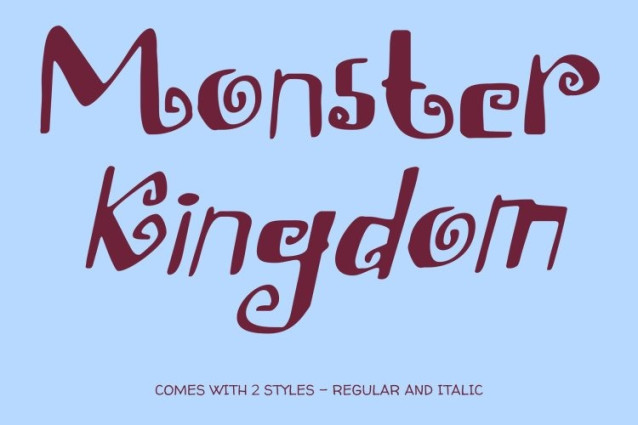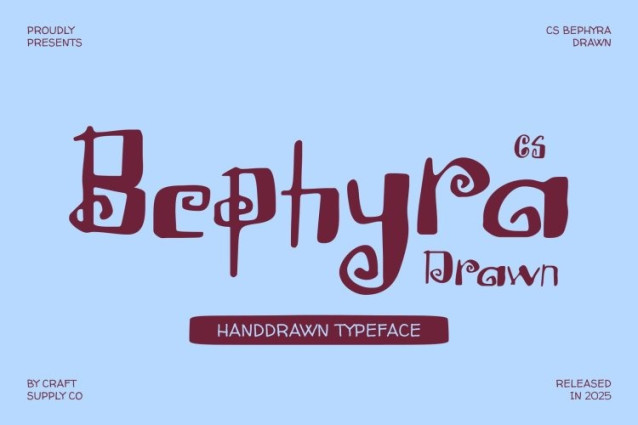
CS Bephyra Drawn Font
CS Bephyra Drawn Font This is a whimsical storybook sans serif font designed to spark imagination and delight. Its playful construction and soft, hand-drawn texture create a warm and inviting personality, perfect for bringing magical, fairytale-like atmospheres to life. Every letter feels joyful and expressive, turning simple text into a charming visual narrative.
Soft Curves for Friendly and Imaginative Expression
Built with gently rounded sans serif shapes, this font delivers a friendly, approachable tone with a touch of childlike innocence. The curved letterforms feel light and playful while maintaining excellent readability. This balance makes the font ideal for storytelling designs that need to feel fun, expressive, and visually comforting.
Hand-Drawn Details with Fantasy Flair
The subtle drawn effect adds an organic, handcrafted quality that enhances the font’s magical appeal. Small decorative nuances give each character personality, creating a sense of movement and fantasy without becoming overly ornate. The result is a font that feels lively, imaginative, and full of narrative charm.
Perfect for Children’s Books and Playful Creative Worlds
This font shines in children’s books, fairy-tale posters, fantasy-themed designs, playful branding, and creative packaging. Its enchanting style helps designers build joyful worlds filled with wonder, creativity, and storytelling magic.